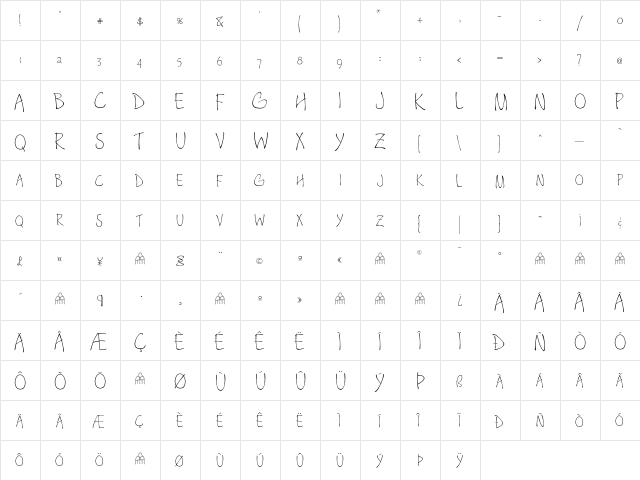
Mesa RegularTallCaps
Design Context for Mesa Typeface
Mesa is a composed and adaptable typeface that performs quietly and consistently across a wide range of design contexts.